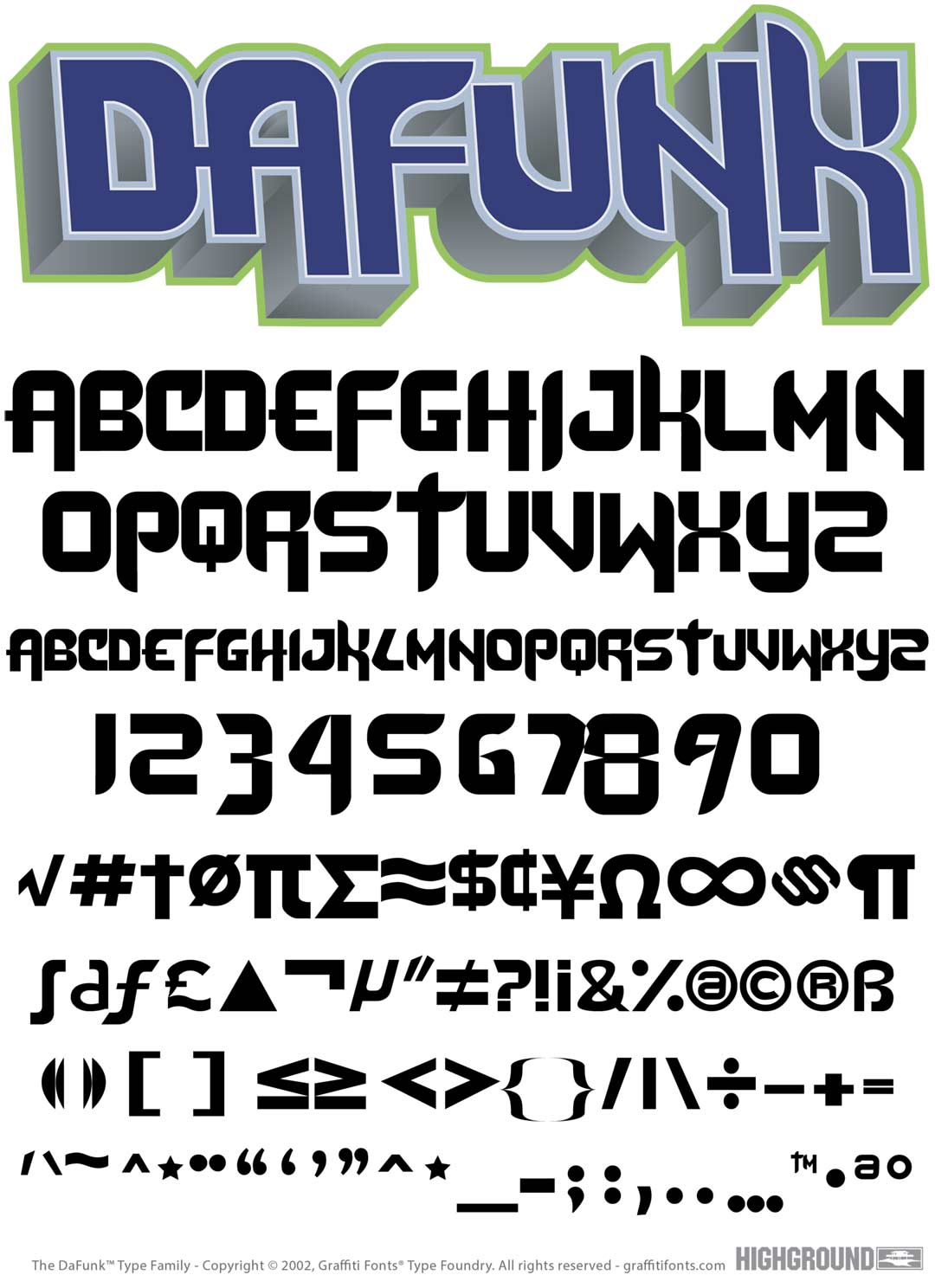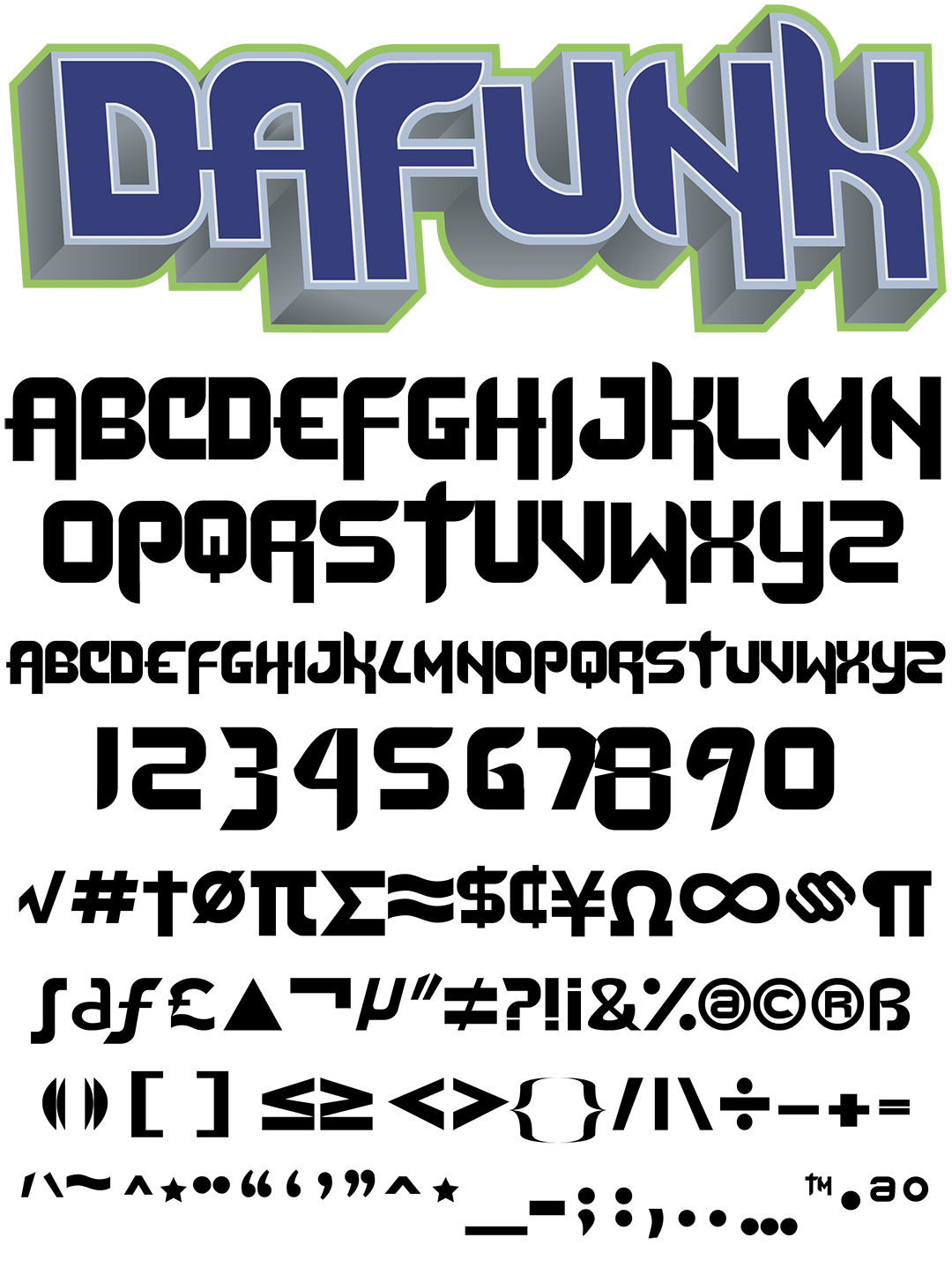
DaFunk Font
DaFunk Graffiti Alphabet
DaFunk Graffiti Font Family
Dafunk is a retro style intended to be a cross between simple graffiti style blocks & 70s era funk, rock & disco styles. This thick headline style includes 156 characters in crisp, even lines & curves.